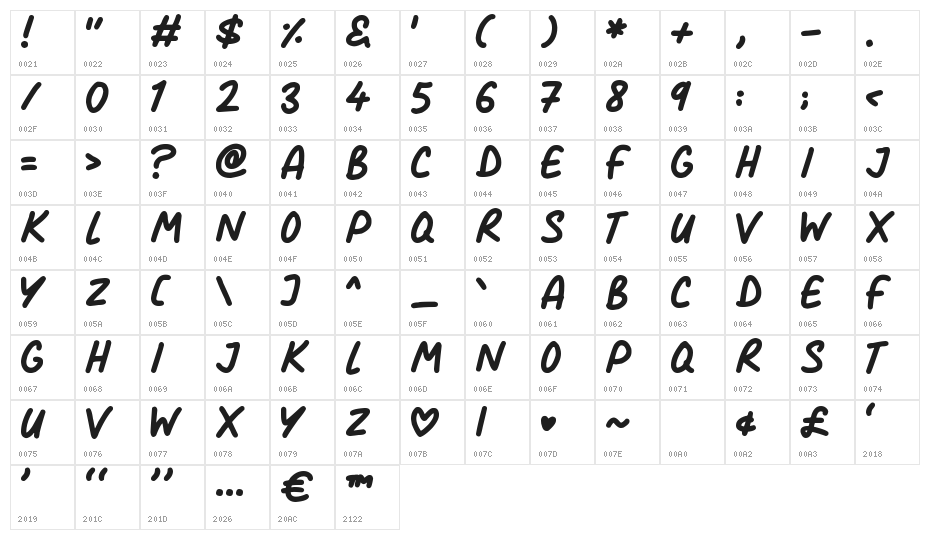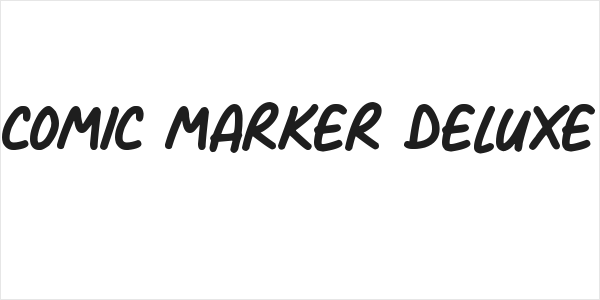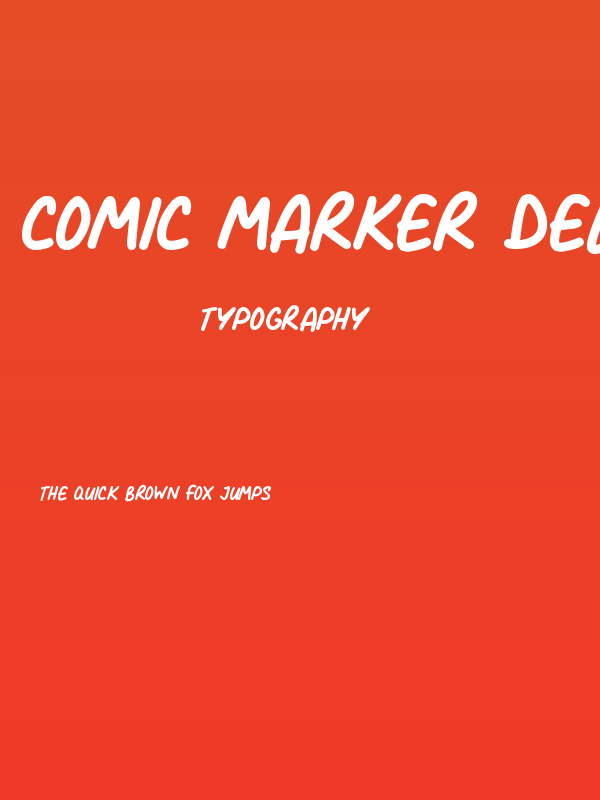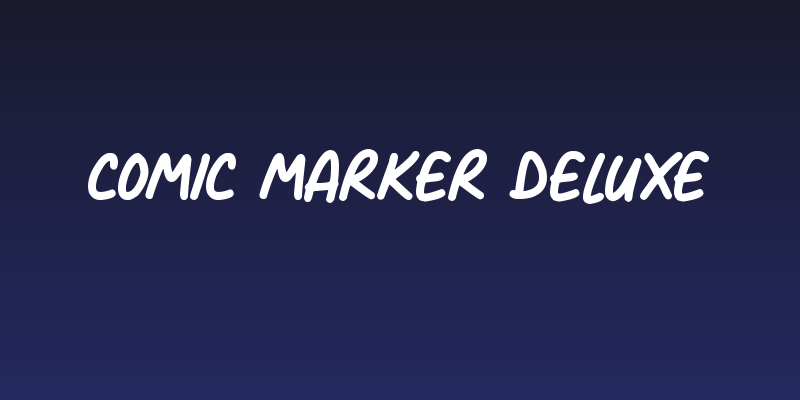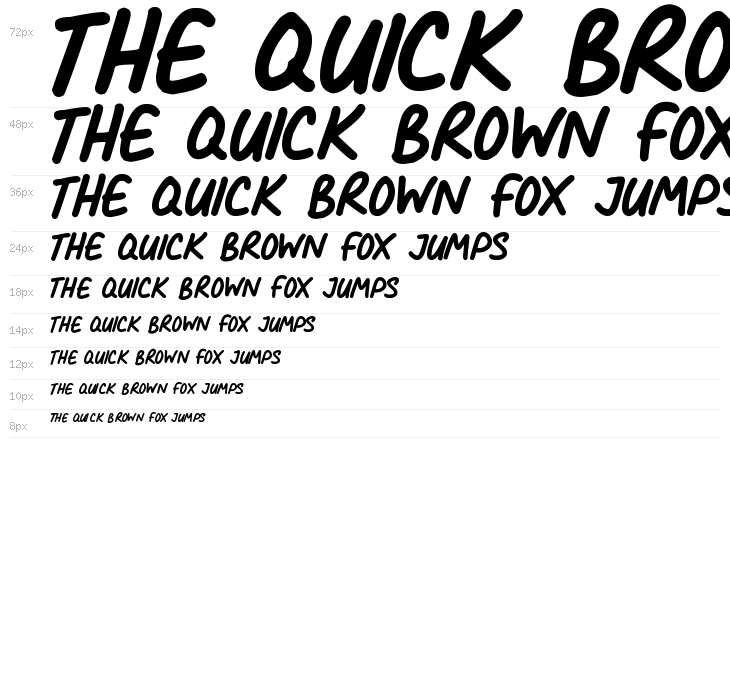
Comic Marker Deluxe Font
Comic Marker Deluxe Description
This playful and bold font exudes a casual, handwritten style reminiscent of comic book lettering. The characters are rounded and slightly slanted, giving them a dynamic and energetic appearance. The strokes are thick and consistent, providing a strong visual impact. The font maintains a uniform width across all characters, ensuring readability while adding a touch of whimsy. Its informal nature makes it ideal for projects that require a fun and approachable aesthetic. The spacing between characters is balanced, neither too tight nor too wide, which enhances its legibility.
Overall StylePlayful, Casual
Use CaseHeadlines, Logos, Informal Text
Proposed ProjectsIdeal for comic strips, children's books, playful branding, and casual invitations.